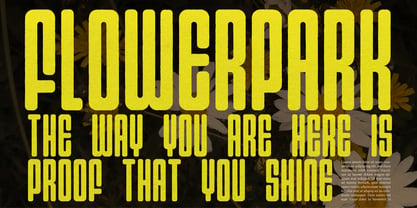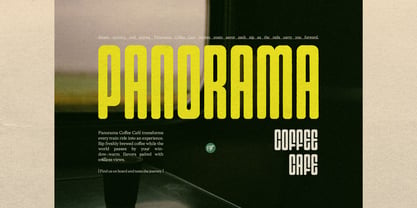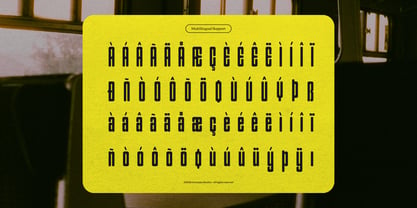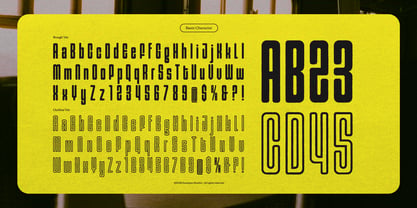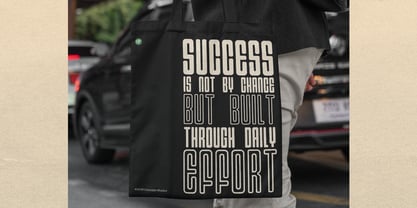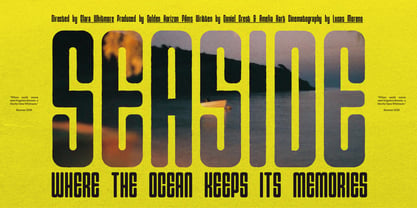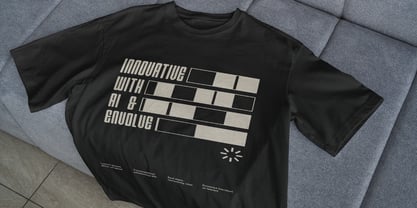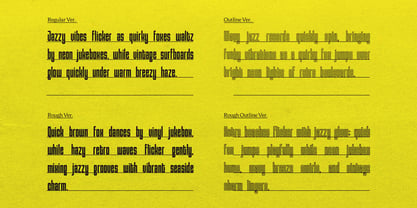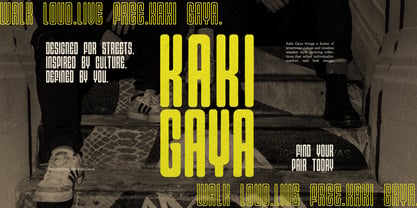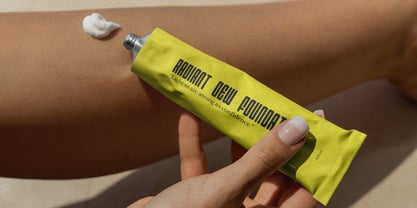
Gerebong Rough
The Gerebong Rough Font Family was designed by and published by Tini Fitriani. Gerebong Rough contains 6 styles and family package options. More about this family
Gerebong | Condensed Sans Serif, from Gracetypestudio, suitable for any projects such as: logos, branding projects, homeware designs, product packaging, mugs, quotes, posters, shopping bags, t-shirts, book covers, name card, invitation cards, greeting cards, label, photography, watermark, special events, and all your other lovely projects that need a Sans Serif taste.
Gerebong Rough